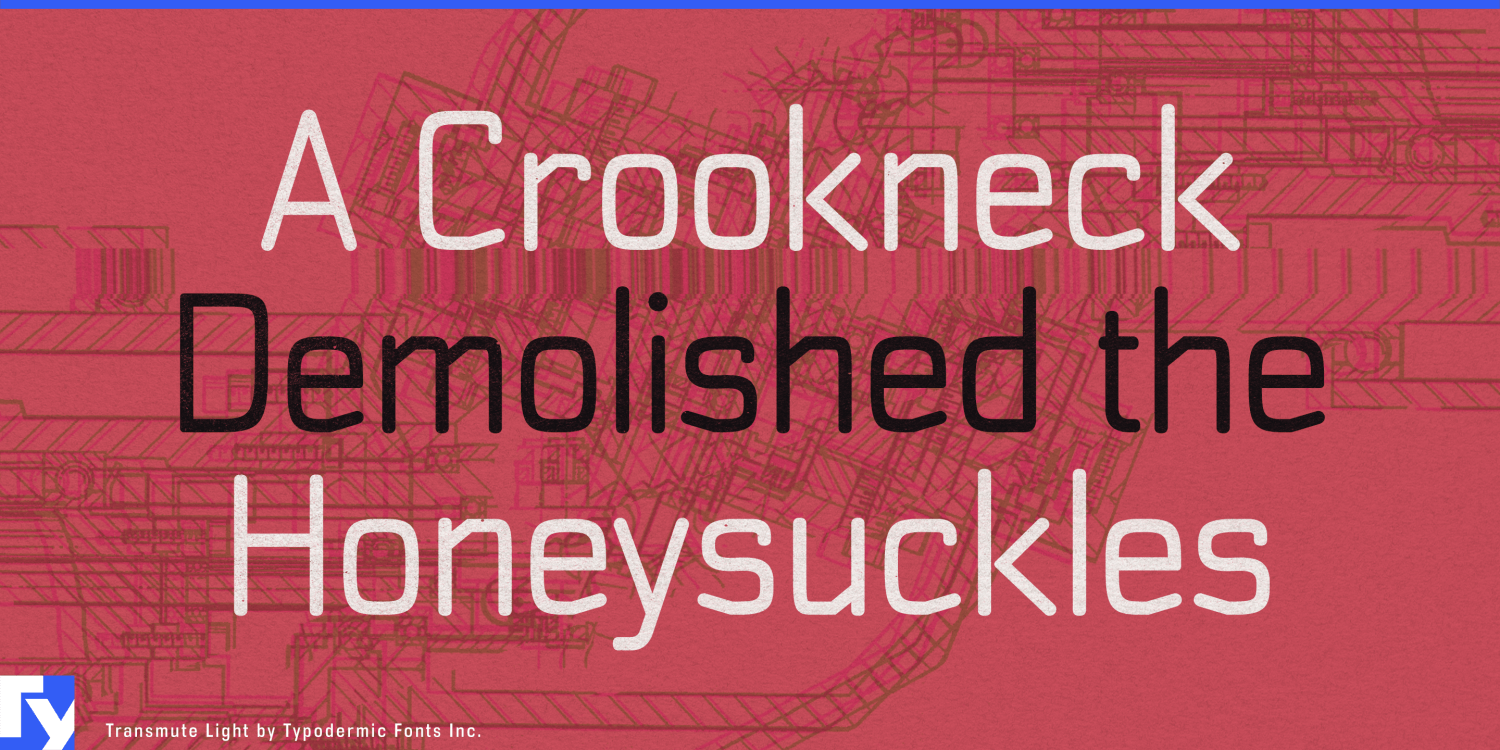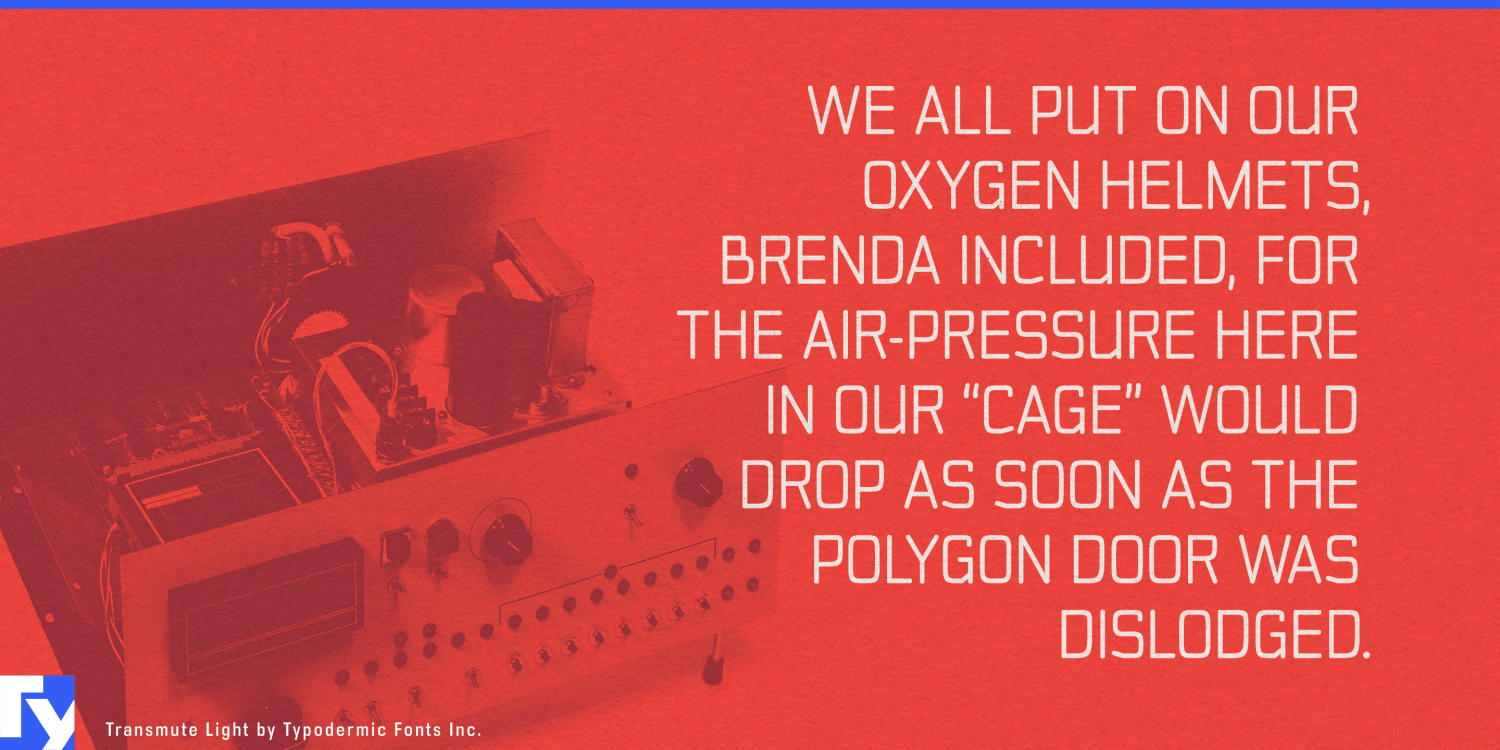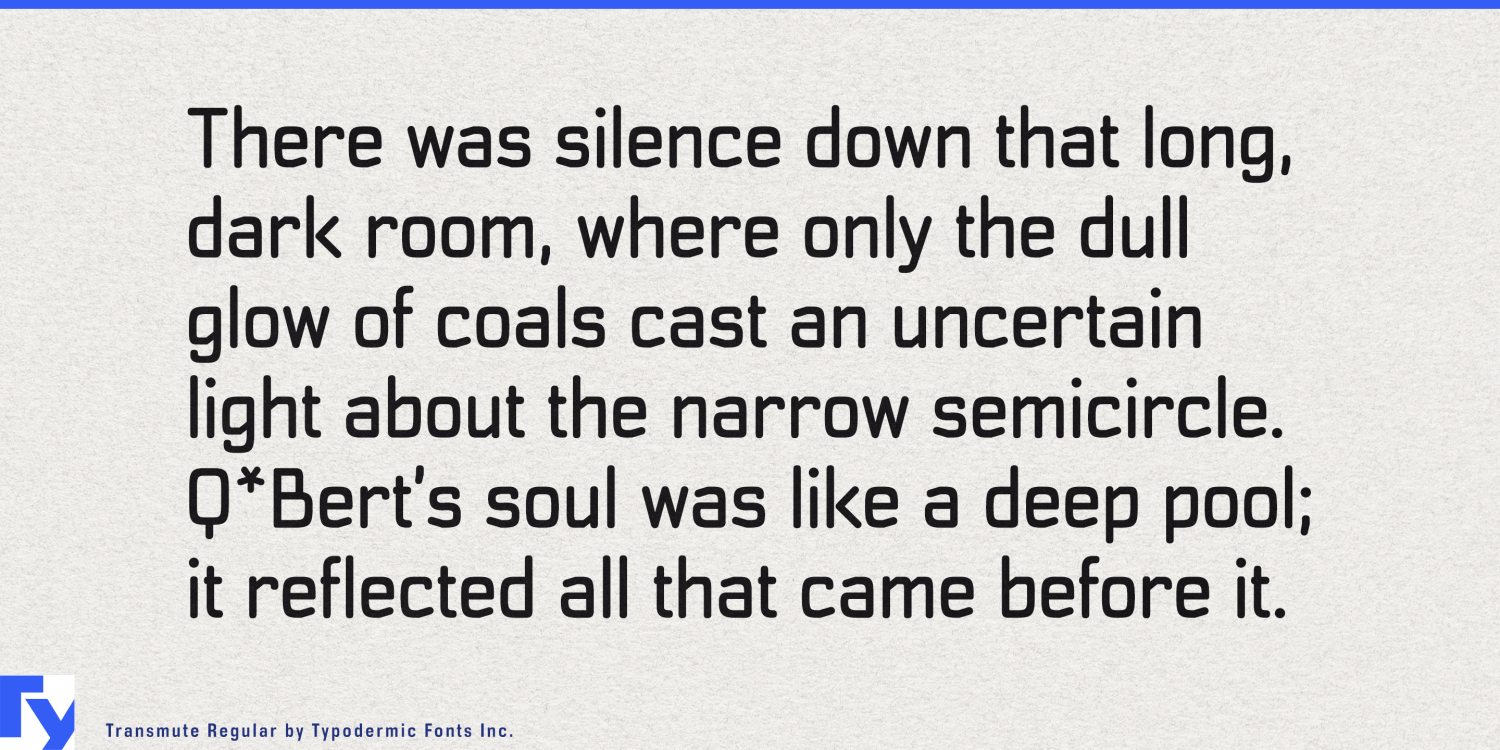
About Transmute
Transmute: a typeface that harnesses the raw energy of scientific discovery and mechanical innovation. This display typeface doesn’t just nod to the past—it throws you headlong into an alternate timeline where gears, levers, and oscilloscopes…